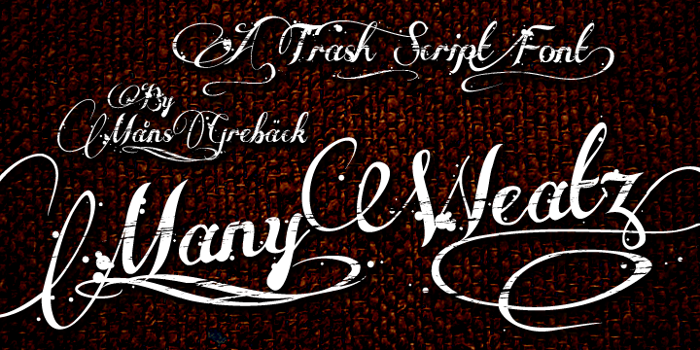
Many Weatz Font
Many Weatz Font is a Cursive font and was created on . Since then, it has been downloaded 247,595 times and added to 2,374 collections. 36 people have liked Many Weatz Font and given it a thumbs up.
C'est original d'avoir mixé plusieurs styles de polices. On retrouve un très joli script fin et classe, mêlé à des taches et rayures. Du class avec du pas-class. Très bien !
Translated: "It's unique to have mixed several font styles. We found a very nice script and end class, mixed with stains and scratches. The class with no-class. Very well!"